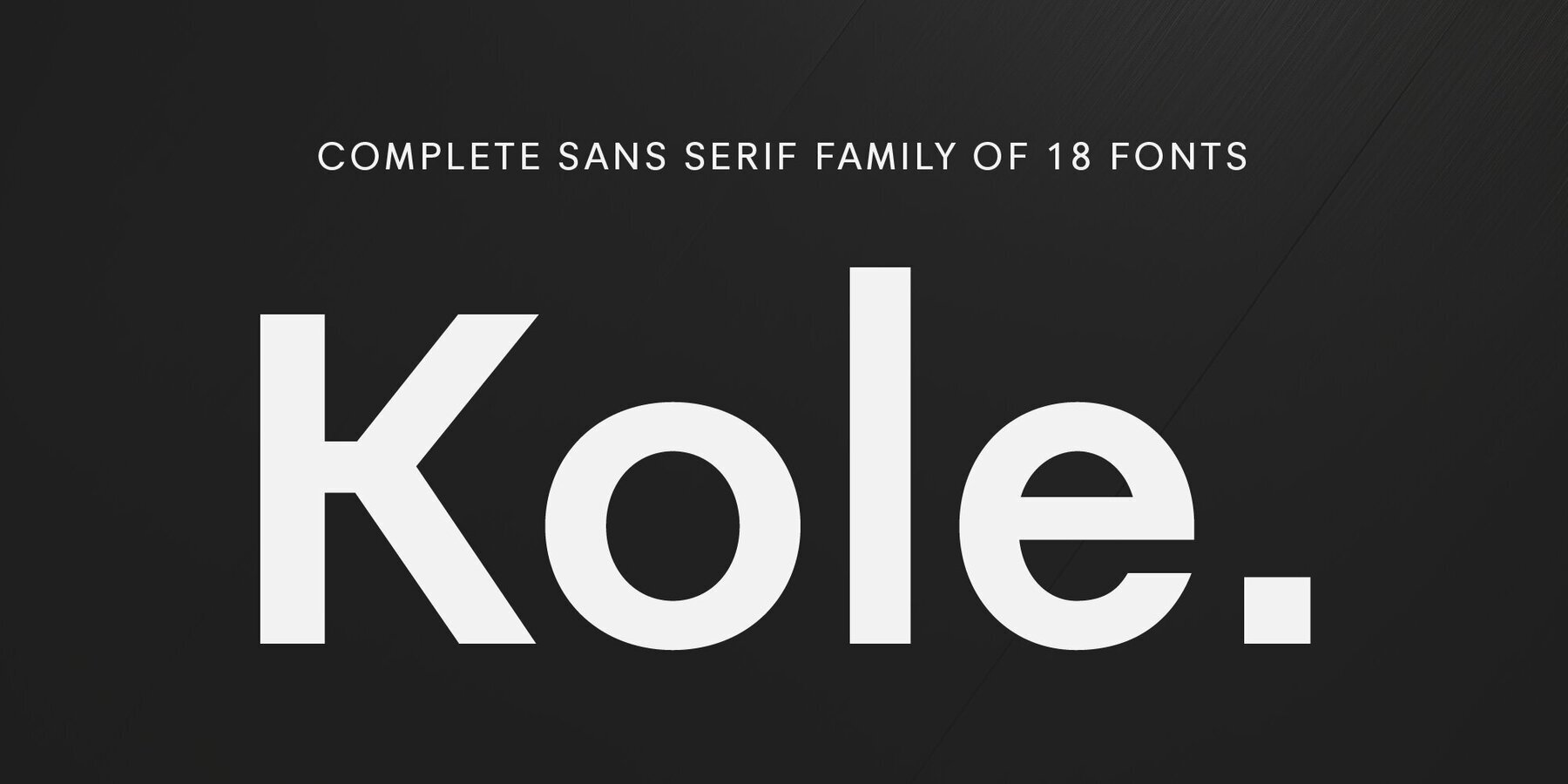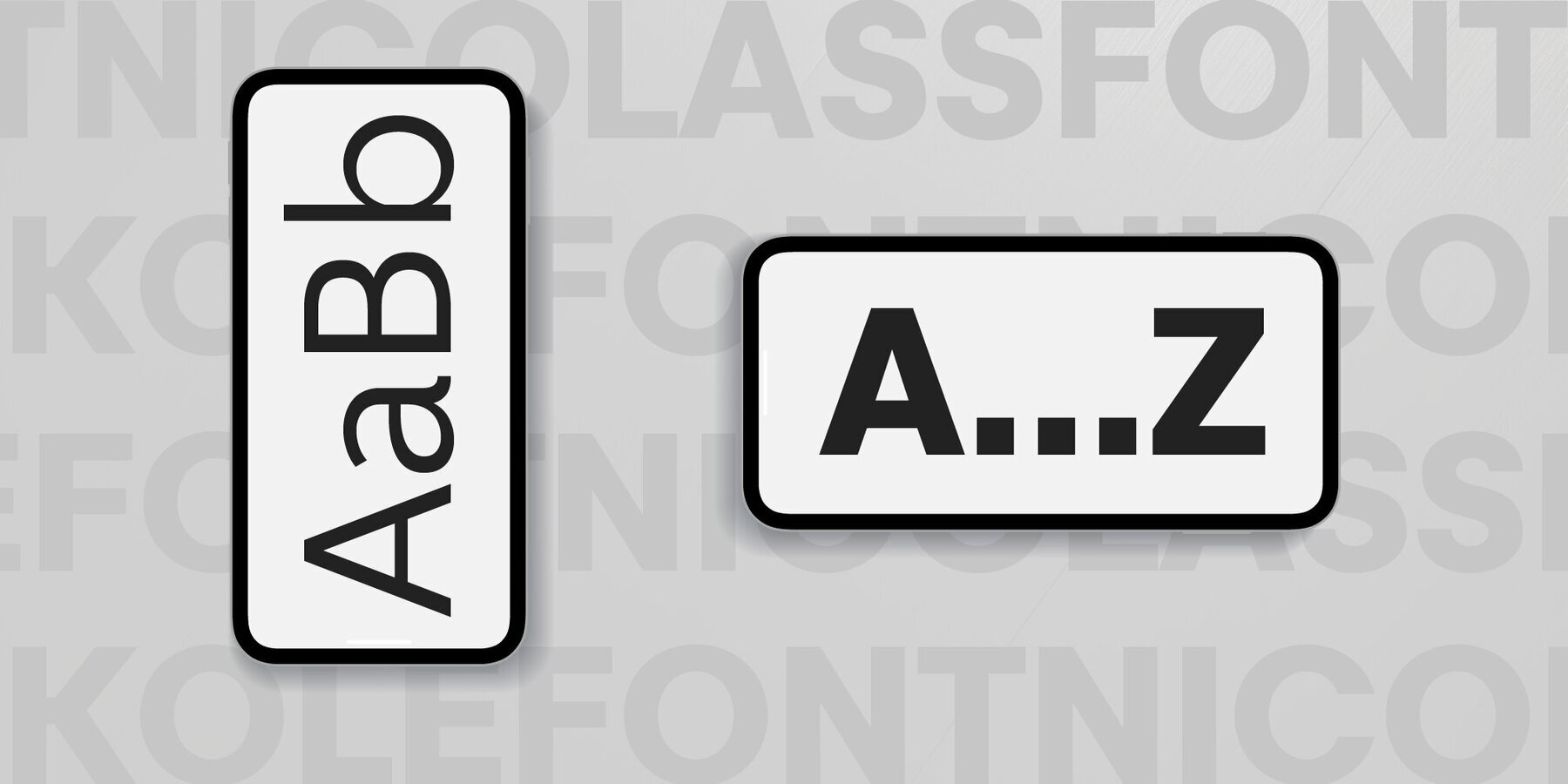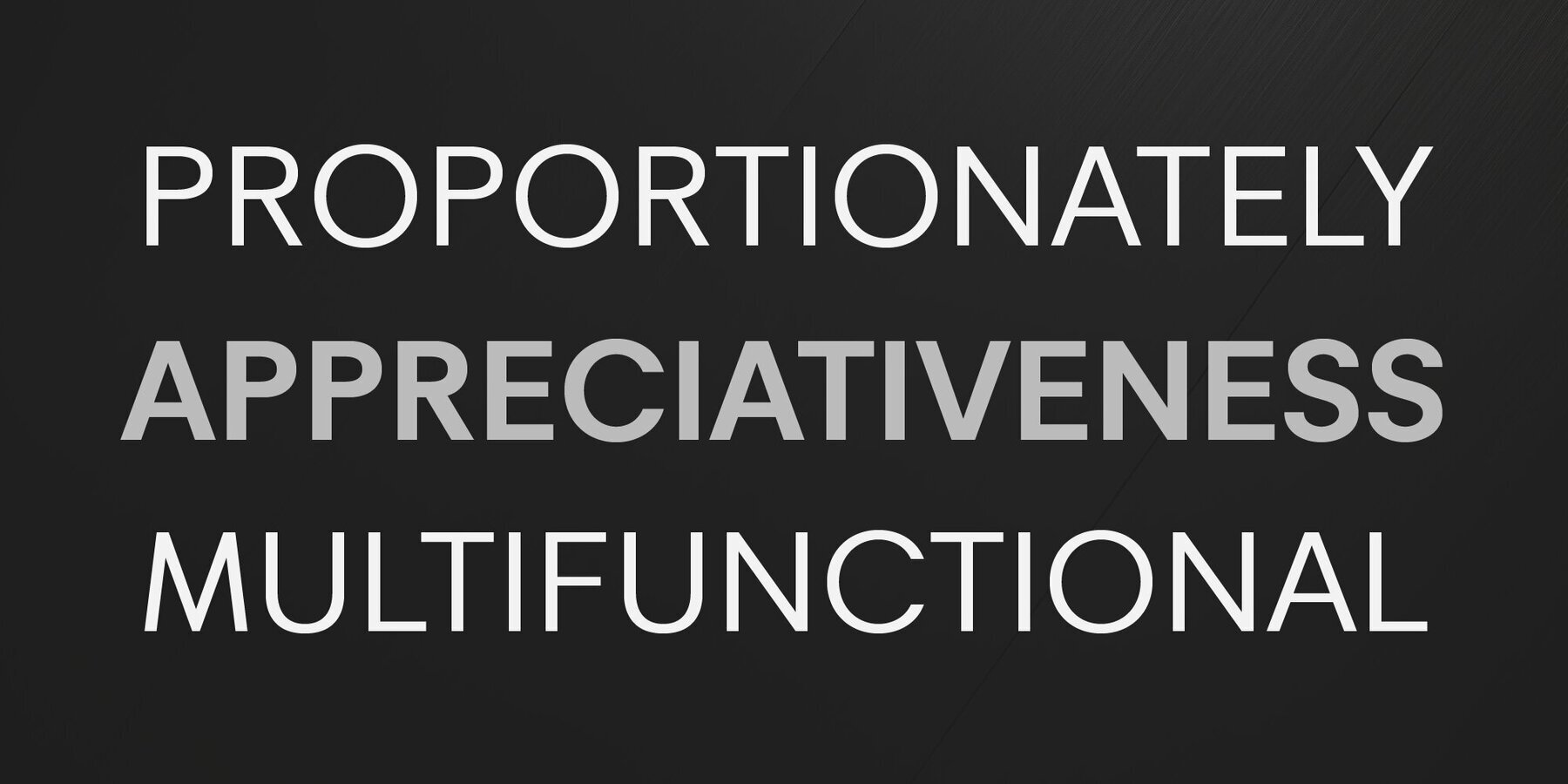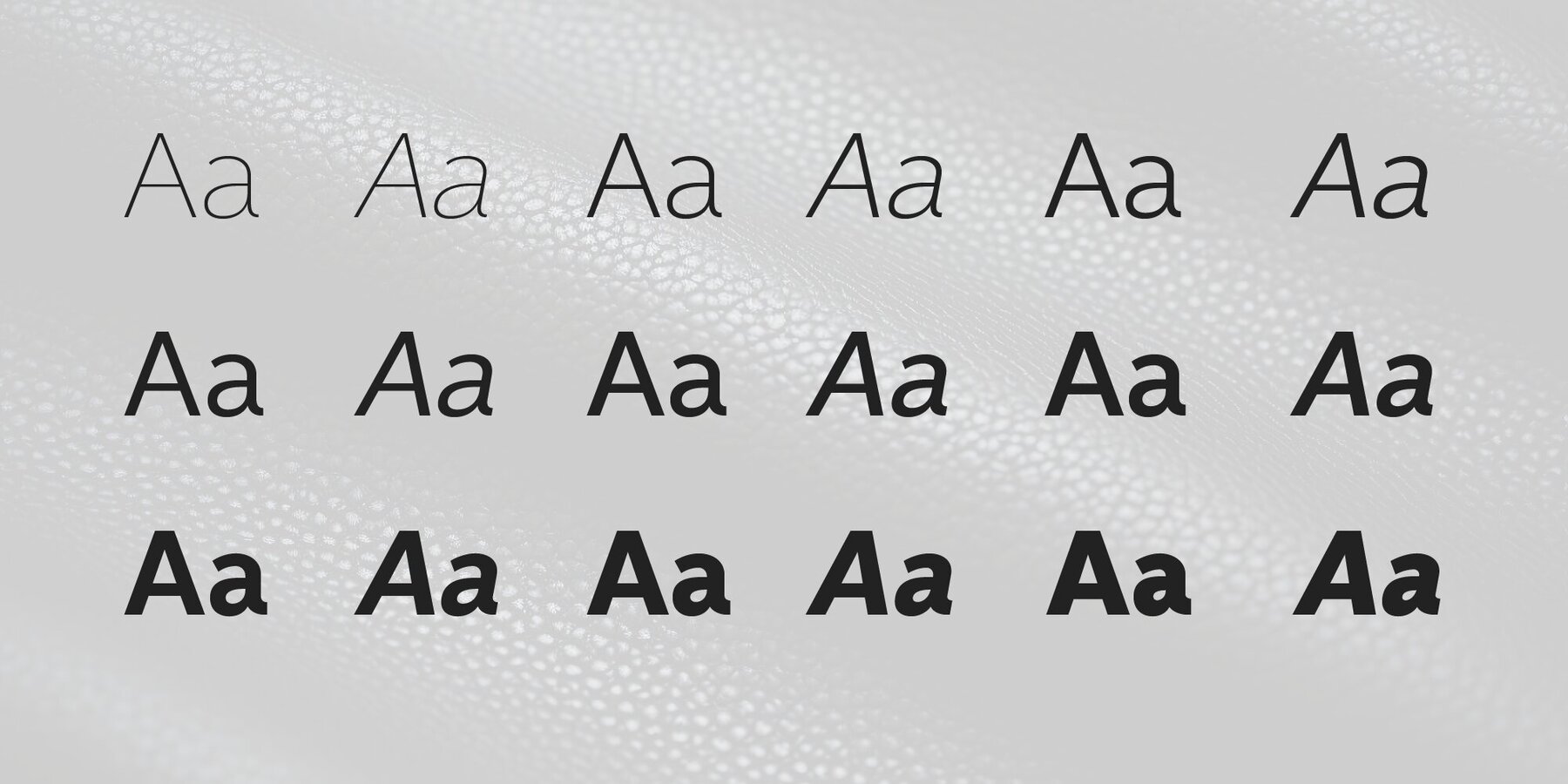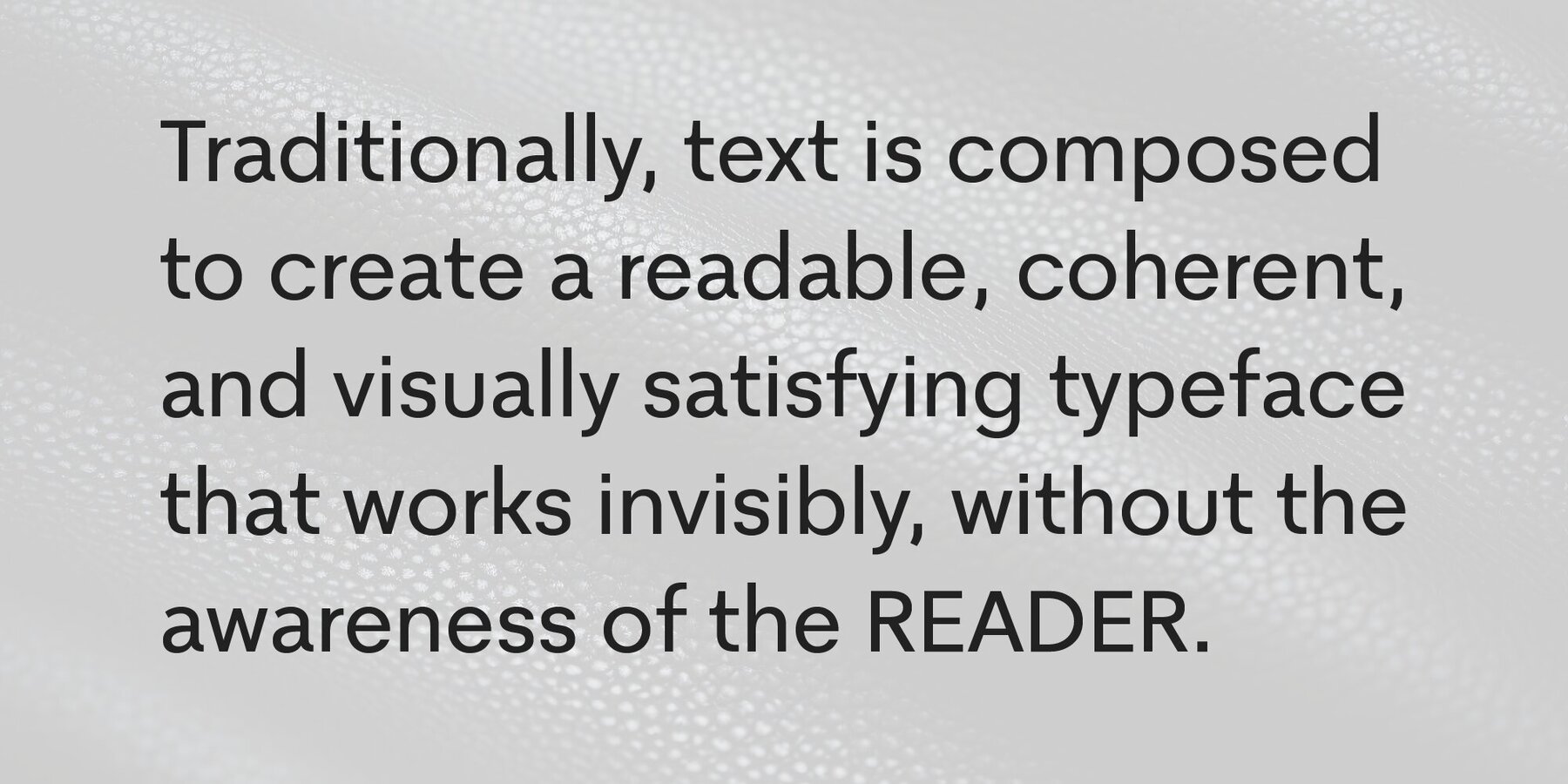
Kole Font
The complete family contains 18 weights. Kole family is ideally suited for signage, packaging, brand identity, software, editorial design, as well as web and screen design. Perfectly for headlines and logotypes.
Savchuk Mykola began his career as a graphic designer. Over time, he had a desire to create a font that would reflect his view of typography. ‘They say that all ingenious things are simple, although unique. In my future projects, I want to reflect simplicity on the one hand and uniqueness on the other, providi...